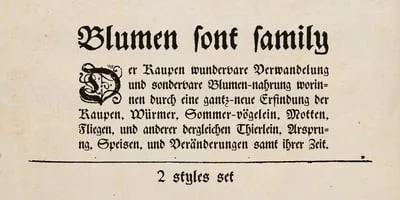
Blumen Font
What makes Blumen Font exciting is its blooming elegance that perfectly captures the natural beauty and organic grace found in flower gardens and botanical artistry. This typeface features delicate letterforms with petal-soft proportions and floral-inspired details that evoke the gentle beauty and seasonal renewal of spring blossoms and garden flowers. The font's flowering personality and botanical authenticity make it ideal for nature brands seeking to convey freshness, natural beauty, and the life-affirming joy that comes from garden cultivation and floral appreciation.
Blumen Font family includes blooming weight variations and botanical alternatives that enhance its floral appeal while providing design flexibility for garden and nature applications. The font features petal-soft ligatures, flower-inspired ornaments, and botanical character variations that create authentic garden atmosphere for floral and nature branding.
Florists and botanical companies consistently choose Blumen Font for projects requiring authentic floral appeal and botanical credibility. The font's blooming character excels in applications targeting garden enthusiasts, flower lovers, and nature appreciators who value genuine botanical beauty and natural elegance. Whether you're designing for flower shops, botanical gardens, or natural beauty products, this flourishing typeface delivers the floral authenticity and botanical grace that resonates with audiences seeking genuine natural beauty and the seasonal joy that comes from garden flowers and botanical artistry that celebrates nature's blooming magnificence.